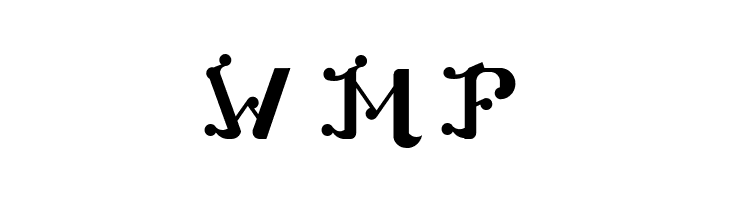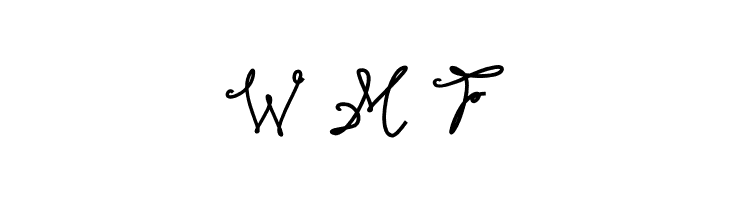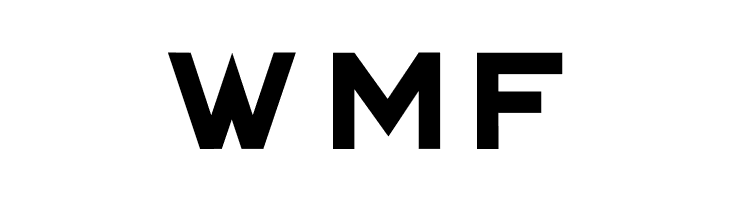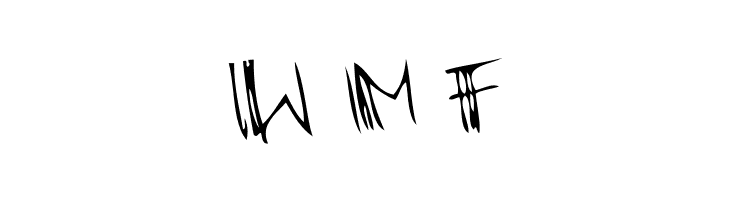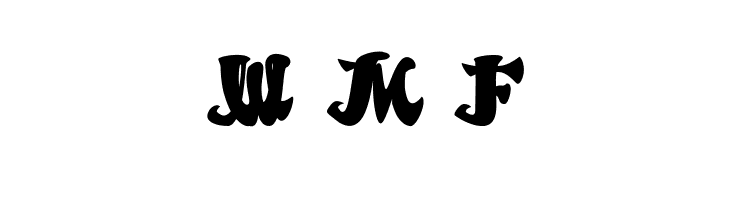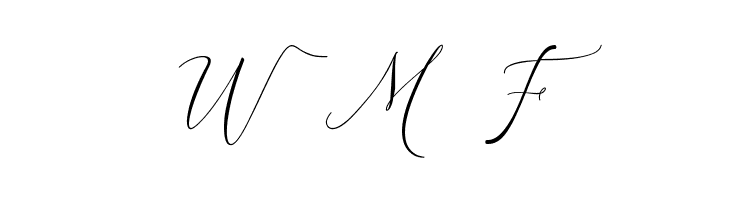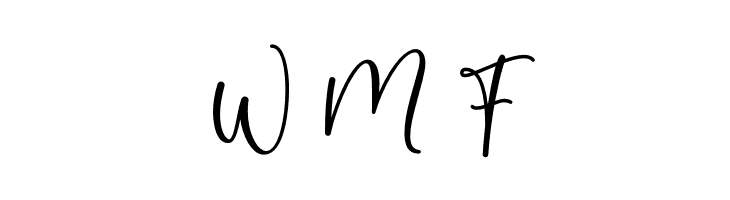
A bold, geometric font with a modern and decorative style.
A bold, decorative font with playful dot accents on each character.
An elegant, flowing script font with intricate loops and flourishes.
A bold, geometric typeface with strong, uniform strokes and modern appeal.
A dynamic, hand-drawn font with an expressive, sketch-like appearance.
A bold, brush-style handwritten font with an expressive and artistic flair.
A bold, decorative font with playful, exaggerated curves and loops.
A flowing, cursive script with elegant loops and swashes.
An elegant script font with flowing, interconnected letters and high contrast strokes.
A playful, handwritten script font with fluid, connected letters.